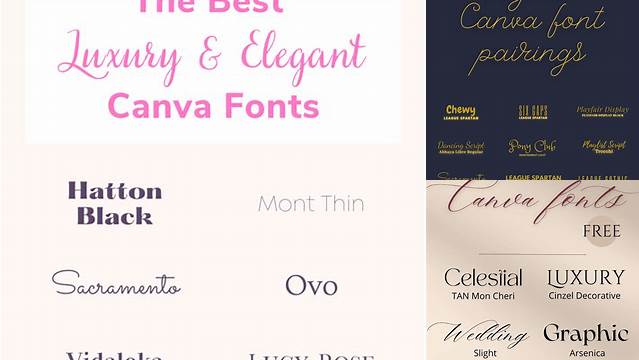
Elegant Fonts In Canva: A Designer's Guide
Choosing the right font can make or break your design. In Canva, the possibilities seem endless, but sifting through the vast library to find those truly elegant fonts can be a challenge. This guide will walk you through some of the most sophisticated and stylish fonts available in Canva, helping you elevate your designs to the next level. Whether you're crafting invitations, designing a website, or creating social media graphics, the perfect font is waiting to be discovered. Let's dive into the world of elegant typography and explore the best options Canva has to offer.
1. Serif Fonts for a Classic Look
Serif fonts are your go-to for a timeless and classic feel. The small strokes or 'serifs' at the end of the letters give these fonts a formal and refined appearance. In Canva, several serif fonts stand out for their elegance and readability. Think of fonts like Playfair Display, which exudes sophistication with its high contrast and delicate serifs. Using serif fonts can instantly add a touch of class to your design. Another excellent choice is Libre Baskerville, a font that strikes a balance between traditional and modern. Guys, if you're aiming for a look that's both polished and readable, serif fonts are your best friend. They work wonders in headings, body text, and even logos. Remember, the key to elegance is often in simplicity, and a well-chosen serif font can speak volumes without being overwhelming.
2. Sans-Serif Fonts for a Modern Touch
For a more contemporary and minimalist aesthetic, sans-serif fonts are the way to go. Unlike serif fonts, these fonts lack the small strokes at the letter endings, giving them a cleaner and more streamlined appearance. In Canva, fonts like Montserrat are incredibly versatile and elegant, making them perfect for a variety of designs. Sans-serif fonts are ideal for conveying a modern, approachable vibe. Another standout is Raleway, which boasts a sleek and sophisticated design that works beautifully in both headings and body text. When you're designing for a tech company, a modern brand, or any project that needs a fresh feel, sans-serif fonts provide that clean, contemporary edge. Plus, they're incredibly readable on screens, making them a smart choice for digital designs. So, if you're looking to keep things stylishly simple, sans-serif fonts are your ally.
3. Script Fonts for a Personal Feel
Script fonts are all about adding a touch of personality and flair to your designs. These fonts mimic the fluidity of handwriting, bringing a personal and elegant feel to your work. In Canva, you'll find a range of script fonts, from the delicate and formal to the playful and casual. Consider using fonts like Great Vibes for invitations or headings where you want to make a statement. Script fonts can be tricky to use sparingly to maintain readability. Another lovely option is Pacifico, a relaxed and flowing script that's perfect for branding or social media graphics. When you choose a script font, think about the message you want to convey. Is it a romantic invitation, a heartfelt thank you note, or a chic logo? Script fonts can set the tone beautifully, but remember to pair them with a simpler font for body text to ensure clarity. So, if you're aiming to add a personal touch, script fonts are a fantastic way to go.
4. Display Fonts for Eye-Catching Headlines
Display fonts are designed to grab attention and make a statement. These fonts come in a wide variety of styles, from bold and impactful to quirky and unique. They're perfect for headlines, titles, and other design elements where you want to create visual interest. In Canva, you'll find an array of display fonts that can add a touch of elegance to your projects. Think of fonts like Playfair Display Black for a strong, sophisticated header, or something more whimsical like a decorative script. Display fonts are meant to stand out, so use them sparingly and strategically. When choosing a display font, consider the overall tone and message of your design. Is it formal and professional, or fun and playful? The right display font can enhance your design and draw the viewer's eye. Just remember, with display fonts, a little goes a long way – so choose wisely and use them to make a memorable impact.
5. Pairing Fonts for a Harmonious Design
Combining fonts effectively is a crucial skill in design. The right font pairing can create a harmonious and visually appealing look, while the wrong pairing can lead to a disjointed and confusing design. In Canva, understanding how to pair fonts can elevate your work from good to great. A classic combination is pairing a serif font for headings with a sans-serif font for body text, or vice versa. For example, you might pair Playfair Display (serif) with Montserrat (sans-serif) for a balanced and elegant feel. Font pairing is all about creating contrast while maintaining harmony. Think about the personality of each font and how they complement each other. Are they both formal, or is one more casual? Aim for a balance that reflects your design's overall message. Experiment with different combinations, and don't be afraid to try new things. With a little practice, you'll develop an eye for effective font pairings that enhance your designs.
6. Elegant Canva Font Combinations
Discovering elegant font combinations in Canva can transform your designs from ordinary to extraordinary. Elegant font combinations are about finding pairings that complement each other, creating a visually harmonious and sophisticated look. Think of pairing a classic serif font like Garamond with a clean sans-serif font like Open Sans. This combination provides a balance between tradition and modernity. Another excellent pairing is Playfair Display for headings with Montserrat for body text. Playfair Display adds a touch of sophistication, while Montserrat ensures readability. Experiment with different combinations to find what works best for your project. Don't be afraid to mix and match serif and sans-serif fonts, but always consider the overall tone and message of your design. The right font combination can enhance your design's impact and convey your message more effectively. So, get creative and explore the endless possibilities of elegant font pairings in Canva.
7. Using Playfair Display for Sophistication
Playfair Display is a serif font that exudes sophistication and elegance. Its high contrast and delicate serifs make it a standout choice for headlines, titles, and branding materials. Using Playfair Display can instantly elevate your design, giving it a touch of classic charm. This font is particularly well-suited for projects that require a refined and polished look, such as wedding invitations, magazine layouts, and high-end branding. Playfair Display also pairs beautifully with sans-serif fonts like Montserrat or Open Sans, creating a balanced and visually appealing contrast. When using Playfair Display, consider the overall tone of your design. It's a font that commands attention, so use it strategically and sparingly. Whether you're designing a logo or crafting a headline, Playfair Display can add a touch of timeless elegance to your work.
8. Montserrat for Modern Elegance
Monserrat is a versatile sans-serif font that embodies modern elegance. Its clean lines and geometric design make it a popular choice for a wide range of design projects, from websites to social media graphics. Montserrat is incredibly readable and works well in both headings and body text. This font has a contemporary feel, making it perfect for brands and projects that want to convey a fresh and stylish image. Montserrat pairs well with serif fonts like Playfair Display or Garamond, creating a balanced and sophisticated look. When using Montserrat, consider its versatility. It can be used in a variety of weights and styles, allowing you to create visual hierarchy and interest in your designs. If you're looking for a font that's both modern and elegant, Montserrat is an excellent choice.
9. Raleway for a Chic Design
Raleway is a sleek sans-serif font that adds a touch of chic sophistication to any design. Its elegant lines and slightly condensed letterforms give it a unique and stylish appearance. Raleway is particularly well-suited for headings, logos, and branding materials where you want to make a statement. This font has a contemporary feel and works well in both digital and print designs. Raleway pairs beautifully with serif fonts like Lora or Merriweather, creating a balanced and visually appealing contrast. When using Raleway, consider its elegance and simplicity. It's a font that can elevate your design without being overpowering. Whether you're designing a website or creating marketing materials, Raleway can help you achieve a chic and sophisticated look.
10. Lora for Timeless Beauty
Lora is a serif font that exudes timeless beauty and readability. Its well-balanced letterforms and delicate serifs make it a perfect choice for body text, as well as headlines. Lora is particularly well-suited for projects that require a classic and elegant feel, such as books, magazines, and websites. This font has a warm and inviting quality, making it a great option for brands that want to convey a sense of trust and reliability. Lora pairs beautifully with sans-serif fonts like Open Sans or Montserrat, creating a balanced and visually appealing design. When using Lora, consider its versatility. It works well in a variety of sizes and styles, allowing you to create visual hierarchy and interest in your designs. If you're looking for a font that's both beautiful and readable, Lora is an excellent choice.
11. Libre Baskerville for Classic Readability
Libre Baskerville is a serif font designed for optimal readability, making it a superb choice for projects that require extended reading, such as articles, books, and websites. Libre Baskerville blends classic elegance with modern practicality, ensuring your text is both stylish and easy on the eyes. Its well-defined serifs and balanced letterforms contribute to its timeless appeal. This font pairs harmoniously with sans-serif fonts like Roboto or Lato, creating a balanced visual hierarchy. When using Libre Baskerville, consider its ability to convey credibility and sophistication. It's an ideal font for academic papers, corporate reports, and any content where clarity and professionalism are paramount. Libre Baskerville is a true workhorse, equally at home in print and digital environments, making it a versatile addition to any designer's toolkit.
12. Merriweather for Comfortable Reading
Merriweather is a serif font specifically designed for comfortable reading on screens. Its slightly condensed letterforms and robust serifs make it a reliable choice for body text in websites and digital publications. Merriweather strikes a balance between elegance and functionality, ensuring your content is both visually appealing and highly readable. This font is particularly well-suited for blogs, online magazines, and e-books where reader engagement is crucial. Merriweather pairs beautifully with sans-serif fonts like Open Sans or Montserrat, creating a harmonious and inviting reading experience. When using Merriweather, consider its versatility in various digital contexts. It performs admirably at different font sizes and resolutions, making it a go-to option for web designers and content creators alike. Its inviting and approachable nature makes Merriweather an excellent choice for any project aiming to connect with its audience on a personal level.
13. Garamond for Traditional Elegance
Garamond is a timeless serif font renowned for its traditional elegance and refined appearance. Its classic letterforms and graceful serifs evoke a sense of sophistication and history. Garamond is an excellent choice for projects that require a touch of old-world charm, such as books, invitations, and formal documents. This font is highly readable and lends an air of credibility to any text. Garamond pairs exquisitely with sans-serif fonts like Helvetica or Arial, creating a balanced and harmonious design. When using Garamond, consider its rich heritage and the message you wish to convey. It’s a font that speaks of tradition, reliability, and quality. Whether you’re designing a book cover or crafting a formal invitation, Garamond can elevate your project with its understated elegance. Its versatility ensures it remains a favorite among designers seeking to blend classic aesthetics with modern appeal.
14. Bodoni for Bold Statements
Bodoni is a high-contrast serif font known for its dramatic strokes and striking appearance. Its bold, vertical lines and thin, horizontal serifs create a visually impactful presence. Bodoni is an excellent choice for headlines, titles, and other design elements where you want to make a bold statement. This font exudes confidence and sophistication, making it ideal for fashion magazines, advertising campaigns, and luxury branding. Bodoni pairs well with clean, minimalist sans-serif fonts like Futura or Gill Sans, allowing its bold personality to shine. When using Bodoni, consider its dramatic flair and how it can enhance your message. It's a font that commands attention, so use it judiciously and in contexts where visual impact is crucial. Whether you're designing a poster or creating a logo, Bodoni can add a touch of elegance and boldness to your project.
15. Great Vibes for Calligraphy-Inspired Designs
Great Vibes is a beautiful script font that mimics the elegance and fluidity of calligraphy. Its flowing strokes and decorative flourishes make it a standout choice for invitations, wedding designs, and other projects that require a personal and romantic touch. Great Vibes is perfect for adding a touch of sophistication and charm to your creations. This font works best when used sparingly, such as in headings or titles, as its intricate design can be challenging to read in large blocks of text. Great Vibes pairs harmoniously with simpler, more legible fonts like Open Sans or Lato, ensuring a balanced and visually appealing design. When using Great Vibes, consider its ability to convey warmth and sincerity. It's an excellent font for expressing heartfelt emotions and adding a touch of handmade artistry to your projects. Whether you’re crafting a wedding invitation or designing a thank-you card, Great Vibes can bring a touch of elegance and grace to your work.
16. Pacifico for a Relaxed Script Feel
Pacifico is a flowing, script font that brings a relaxed and friendly feel to any design. Its rounded letterforms and casual strokes evoke a sense of warmth and approachability. Pacifico is particularly well-suited for logos, branding, and social media graphics where you want to convey a sense of ease and informality. This font is highly legible and works well in both print and digital environments. Pacifico pairs nicely with sans-serif fonts like Roboto or Nunito, creating a balanced and inviting look. When using Pacifico, consider its ability to add a personal touch to your projects. It’s an excellent font for brands that want to connect with their audience on a human level. Whether you’re designing a website header or creating a promotional flyer, Pacifico can help you achieve a relaxed and welcoming aesthetic.
17. Choosing Fonts for Wedding Invitations
Selecting the right fonts for wedding invitations is crucial to setting the tone for your special day. The fonts you choose should reflect the style and theme of your wedding, whether it's classic and elegant, rustic and charming, or modern and chic. Choosing fonts for wedding invitations involves considering factors such as readability, aesthetics, and the overall message you want to convey. Popular choices include serif fonts like Playfair Display and Garamond for a touch of sophistication, script fonts like Great Vibes and Pacifico for a romantic flair, and sans-serif fonts like Montserrat and Raleway for a contemporary feel. A successful wedding invitation often combines a decorative font for the names or headings with a simpler, more legible font for the details. Experiment with different combinations to find the perfect balance that captures the essence of your celebration. Remember, the fonts you choose play a significant role in creating a memorable first impression for your guests.
18. Fonts for Business Cards that Impress
The fonts you use on your business cards can significantly impact how people perceive your brand. Fonts for business cards need to be both visually appealing and highly readable, as your card is often the first tangible impression you make. Opting for elegant and professional fonts can help convey credibility and attention to detail. Classic serif fonts like Garamond and Libre Baskerville offer a sophisticated touch, while clean sans-serif fonts such as Montserrat and Raleway project a modern, streamlined image. Consider using a slightly bolder font for your name and a lighter weight for contact information to create a clear visual hierarchy. Pairing fonts effectively is key; a timeless combination is a serif for the name and a sans-serif for the rest of the text. Ultimately, the fonts on your business card should align with your brand identity and leave a lasting, positive impression.
19. Creating a Logo with Elegant Typography
Crafting a logo with elegant typography is about more than just picking a pretty font; it’s about encapsulating your brand’s essence in a visual form. The fonts you choose for your logo communicate your brand's personality, values, and style. Creating a logo with elegant typography involves selecting fonts that are not only aesthetically pleasing but also memorable and legible. Serif fonts like Bodoni can convey sophistication and tradition, while sans-serif fonts like Raleway offer a modern, clean look. Script fonts, such as Great Vibes, can add a touch of personality and charm, but should be used judiciously to maintain readability. It's crucial to consider the font's weight, spacing, and overall visual impact. A successful logo font should be versatile enough to work across various mediums, from business cards to websites. A well-chosen typeface can transform a simple design into a powerful brand identifier.
20. Best Canva Fonts for Social Media Graphics
In the fast-paced world of social media, using the right fonts can make your graphics stand out and grab attention. Best Canva fonts for social media graphics are those that are eye-catching, legible, and aligned with your brand’s aesthetic. Fonts like Montserrat and Raleway offer a clean, modern look that works well for various social media platforms. For a touch of elegance, Playfair Display can be used in headings, while Lora provides a classic feel for body text. Script fonts like Pacifico are great for adding a personal touch, but should be used sparingly to ensure readability. When choosing fonts for social media, consider the size and format of the graphics, as well as the platform’s visual style. Experimenting with font pairings can help you create a cohesive and visually appealing brand presence. Ultimately, the best fonts for social media are those that capture attention and effectively communicate your message.
21. Fonts for Minimalist Design in Canva
Minimalist design emphasizes simplicity and clarity, making the choice of fonts particularly crucial. Fonts for minimalist design in Canva should be clean, legible, and understated, allowing the content and other design elements to take center stage. Sans-serif fonts like Open Sans, Montserrat, and Raleway are excellent choices for minimalist projects due to their modern, uncluttered appearance. These fonts offer versatility and readability, making them suitable for both headings and body text. When selecting fonts for a minimalist design, consider the overall aesthetic you want to achieve. Clean lines and ample white space are hallmarks of minimalism, so choose fonts that complement these elements. A restrained color palette and minimal use of decorative elements ensure the typography remains the focal point. The key to success in minimalist design is often choosing one or two fonts that work harmoniously together, creating a cohesive and impactful visual experience.
22. Elegant Fonts for E-Book Design
Designing an e-book requires fonts that are not only elegant but also exceptionally readable for extended periods. Elegant fonts for e-book design must prioritize clarity and comfort, ensuring readers can immerse themselves in the content without strain. Serif fonts like Lora, Merriweather, and Libre Baskerville are excellent choices for body text due to their classic appeal and enhanced readability. These fonts feature serifs that guide the reader’s eye, making long passages of text easier to follow. For headings, you might opt for a slightly bolder serif or a clean sans-serif font like Montserrat to create visual contrast. The font size, line spacing, and margins also play crucial roles in the overall reading experience. A well-designed e-book balances aesthetics with functionality, ensuring the typography enhances the reader’s engagement and enjoyment.
23. Font Psychology: Choosing the Right Vibe
Font psychology is the study of how different typefaces evoke certain emotions and associations in viewers. Understanding font psychology can significantly enhance your design choices, ensuring your message aligns with the visual tone. Font psychology: choosing the right vibe involves considering the emotional impact of various fonts. Serif fonts, such as Garamond and Times New Roman, often convey tradition, authority, and reliability. Sans-serif fonts, like Helvetica and Arial, tend to project a modern, clean, and approachable image. Script fonts, such as Great Vibes, evoke elegance and creativity, while display fonts can make bold statements and capture attention. When selecting fonts, consider your target audience and the message you want to communicate. A font's personality should resonate with your brand identity and the overall feeling you want to create. By understanding font psychology, designers can craft more effective and impactful visual communications.
24. How Font Size Affects Readability and Style
The size of your fonts plays a critical role in both the readability and the overall style of your design. How font size affects readability and style involves understanding how different sizes impact the user experience. Body text should be large enough to read comfortably, typically ranging from 10 to 12 points for print and 16 to 18 pixels for web. Headings, on the other hand, should be larger to create a clear visual hierarchy and draw the reader’s eye. The font size should also be proportional to the surrounding elements and the overall layout. A font that’s too small can strain the eyes, while one that’s too large can appear overwhelming. The right font size not only enhances readability but also contributes to the aesthetic appeal of your design. Experiment with different sizes and styles to find the perfect balance for your project.
25. Kerning, Tracking, and Leading: Typography Essentials
Kerning, tracking, and leading are fundamental typography techniques that significantly impact the visual appeal and readability of your text. Kerning, tracking, and leading: typography essentials involves adjusting the spacing between letters and lines to achieve a balanced and harmonious look. Kerning refers to the space between individual letters, ensuring that each pair of characters appears visually consistent. Tracking, also known as letter-spacing, adjusts the overall spacing between all letters in a word or phrase. Leading, or line-height, controls the vertical space between lines of text. Mastering these techniques can transform ordinary text into elegant and professional-looking typography. By fine-tuning kerning, tracking, and leading, designers can improve readability, create visual interest, and ensure their text complements the overall design.
26. Using Canva Font Filters to Find Elegant Options
Canva’s font filters can be a valuable tool for quickly narrowing down your search for elegant typefaces. Using Canva font filters to find elegant options allows you to efficiently sort through the vast library of fonts and discover hidden gems. By using the filters, you can specify criteria such as font style (serif, sans-serif, script), weight, and even language. To find elegant options, try filtering for serif fonts or script fonts, which often exude sophistication and class. You can also explore different font weights to find a balance between boldness and refinement. Canva also offers curated font pairings, which can provide inspiration and save time in the design process. Utilizing font filters effectively can streamline your workflow and help you discover the perfect elegant font for your project.
27. Free vs. Premium Fonts in Canva: What's the Difference?
Canva offers both free and premium fonts, each with its own advantages and limitations. Understanding the differences between these options is crucial for making informed design choices. Free vs. premium fonts in Canva: what's the difference? primarily comes down to licensing and selection. Free fonts are available to all Canva users and can be used for a wide range of personal and commercial projects. Premium fonts, on the other hand, are typically part of Canva Pro or require a separate purchase. These fonts often offer a more diverse and higher-quality selection, with unique designs and greater versatility. While free fonts are a great option for budget-conscious designers, premium fonts can provide a competitive edge and ensure your designs stand out. Consider the scope and purpose of your project when deciding between free and premium fonts in Canva.
28. Pairing Elegant Fonts with Images for Visual Harmony
Creating visual harmony in your designs involves carefully pairing elegant fonts with the right images. The interplay between typography and imagery can significantly impact the overall aesthetic and effectiveness of your design. Pairing elegant fonts with images for visual harmony requires considering factors such as style, tone, and composition. If you're using a sophisticated serif font like Playfair Display, you might pair it with high-quality, professional images to reinforce a sense of elegance. For a modern sans-serif font like Montserrat, clean and contemporary images work well. Ensure the fonts and images complement each other rather than competing for attention. A cohesive color palette and a consistent style can further enhance the visual harmony. By thoughtfully combining fonts and images, you can create designs that are both visually appealing and impactful.
29. Avoiding Common Font Mistakes in Design
Avoiding common font mistakes is crucial for creating professional and effective designs. Typography errors can detract from your message and undermine your credibility. Avoiding common font mistakes in design involves understanding principles such as readability, hierarchy, and font pairing. One common mistake is using too many fonts in a single design, which can create a cluttered and confusing look. Stick to a maximum of two or three fonts and ensure they complement each other. Another mistake is choosing fonts that are difficult to read, either due to their style or size. Pay attention to kerning, tracking, and leading to ensure optimal readability. Avoid using overly decorative fonts for body text and ensure there’s sufficient contrast between the text and the background. By being mindful of these common pitfalls, you can elevate your designs and communicate your message effectively.
30. The Future of Elegant Typography in Digital Design
The future of elegant typography in digital design is dynamic and ever-evolving, driven by technological advancements and changing aesthetic preferences. The future of elegant typography in digital design will likely see a greater emphasis on variable fonts, which offer increased flexibility and customization. Variable fonts allow designers to adjust font weights, widths, and other characteristics, enabling more nuanced and responsive typography. Artificial intelligence (AI) is also playing a growing role in font design, with AI tools helping to generate and refine typefaces. As digital design continues to prioritize user experience, readability and accessibility will remain key considerations. Elegant typography will continue to be a crucial element in creating visually appealing and user-friendly digital experiences. Staying abreast of these trends will enable designers to leverage the power of typography to its fullest potential.